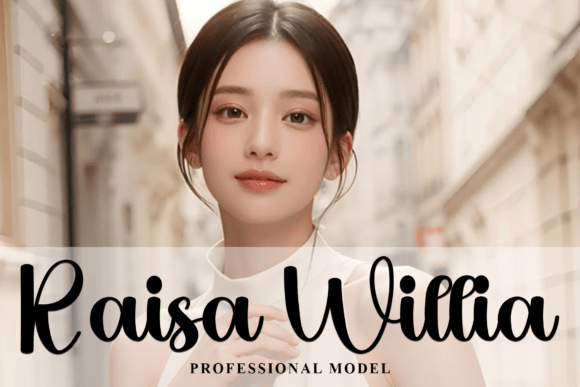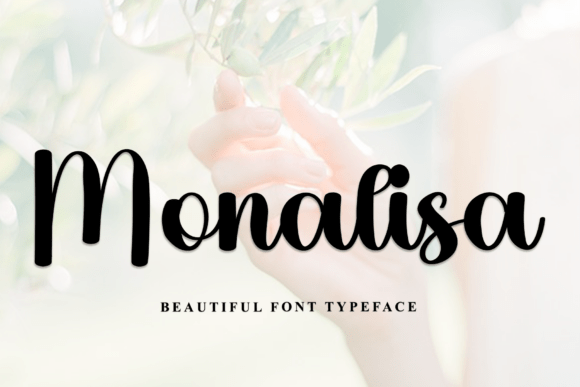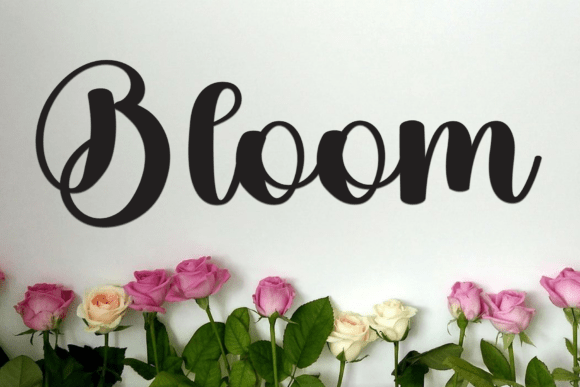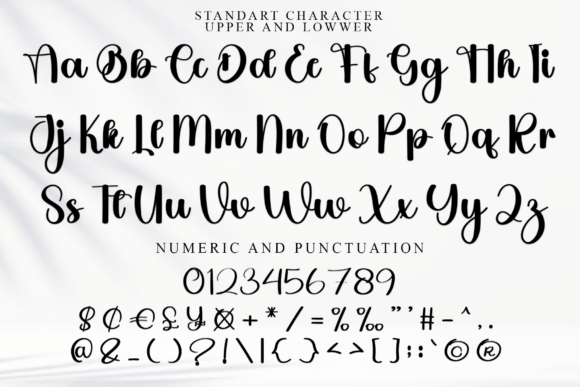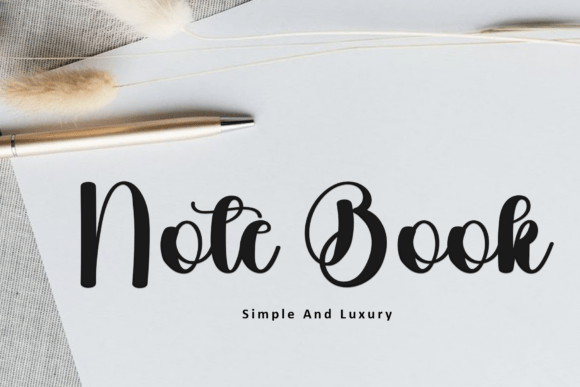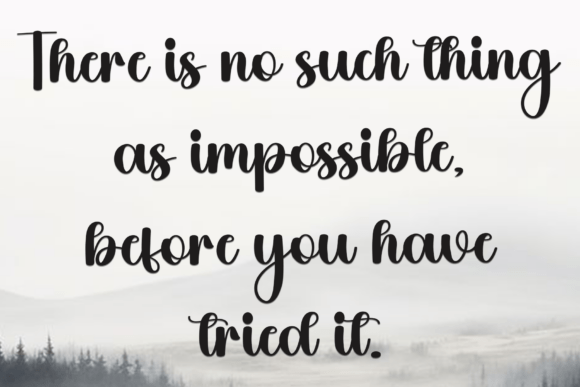
Introducing Country Font: A Festive and Merry Typeface for the Holiday Season
The holiday season is upon us, and what better way to get into the spirit than with a font that’s as festive and merry as the time of year itself? Look no further than Country Font, a decorative typeface that’s perfect for adding a touch of enchantment to your designs. Whether you’re creating greeting cards, gift tags, or holiday-themed projects, this font is sure to bring a cheerful and nostalgic ambiance to your words.
What Makes Country Font So Special?
Country Font is more than just a typeface – it’s an experience. With its whimsical flair and decorative elements, it’s the perfect way to add a little magic to your designs. The font’s playful, cursive style is reminiscent of traditional holiday decorations, making it the perfect choice for anyone looking to create festive and fun designs.
One of the standout features of Country Font is its PUA (Private Use Area) encoding. This means that you can access all of the amazing glyphs and ligatures with ease, giving you a wide range of creative possibilities. Whether you’re a designer, crafter, or DIY enthusiast, you’ll love the flexibility and versatility that Country Font has to offer.
Country Font is a dream come true for designers and crafters who love to get creative during the holiday season. With its festive and merry vibe, it’s the perfect choice for a wide range of projects, from holiday cards and gift tags to party invitations and decorations.
Designers will love the font’s unique and playful style, which is sure to add a touch of personality to any design. And with its PUA encoding, you’ll have access to a wide range of glyphs and ligatures that will make your designs truly special.
Tips for Using Country Font
Here are a few tips for getting the most out of Country Font:
- Use it for holiday-themed projects, such as greeting cards, gift tags, and party invitations.
- Take advantage of the font’s PUA encoding to access a wide range of glyphs and ligatures.
- Use it in combination with other fonts and design elements to create unique and eye-catching designs.
Why Choose Country Font?
So why choose Country Font for your holiday designs? Here are just a few reasons:
- It’s festive and merry, making it perfect for the holiday season.
- It’s decorative and playful, adding a touch of whimsy to your designs.
- It’s versatile and easy to use, making it perfect for designers and crafters of all levels.
- It’s PUA encoded, giving you access to a wide range of glyphs and ligatures.
Country Font is a truly special typeface that’s perfect for adding a touch of magic to your holiday designs. With its festive and merry vibe, decorative elements, and whimsical flair, it’s the perfect choice for designers and crafters who love to get creative during the holiday season. So why wait? Download Country Font today and let your typography shine with the magic of this beautiful font!
Whether you’re creating holiday cards, gift tags, or decorations, Country Font is sure to bring a cheerful and nostalgic ambiance to your words. So go ahead, get creative, and make the most of this amazing font. Your designs will thank you!